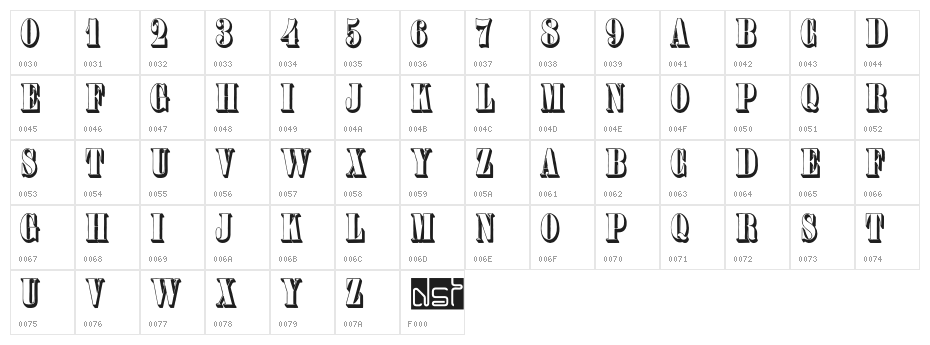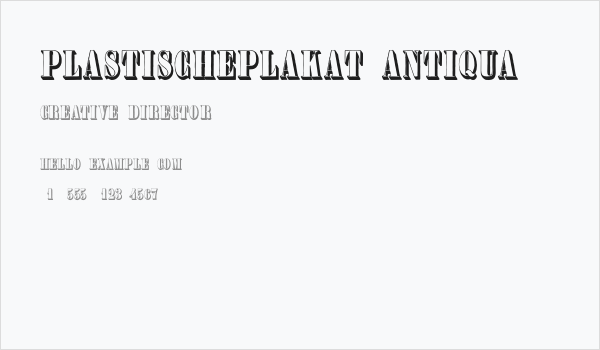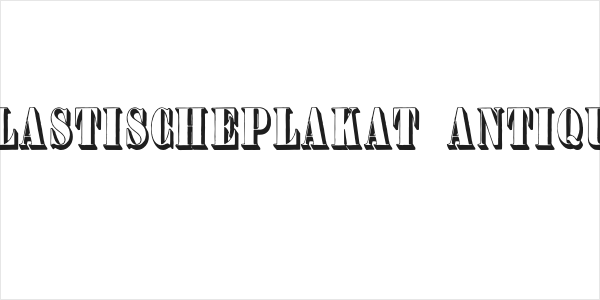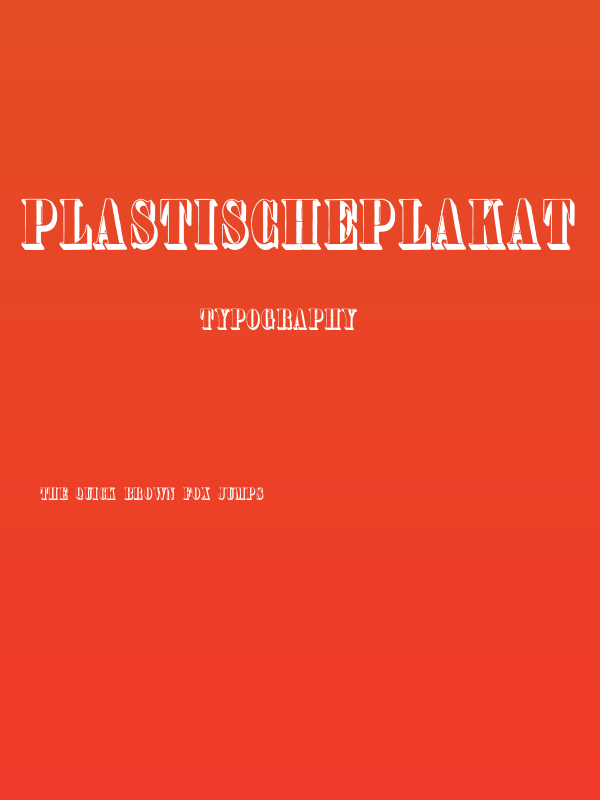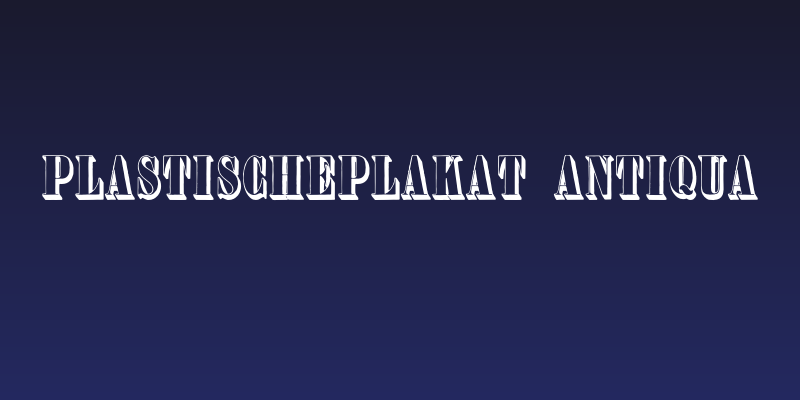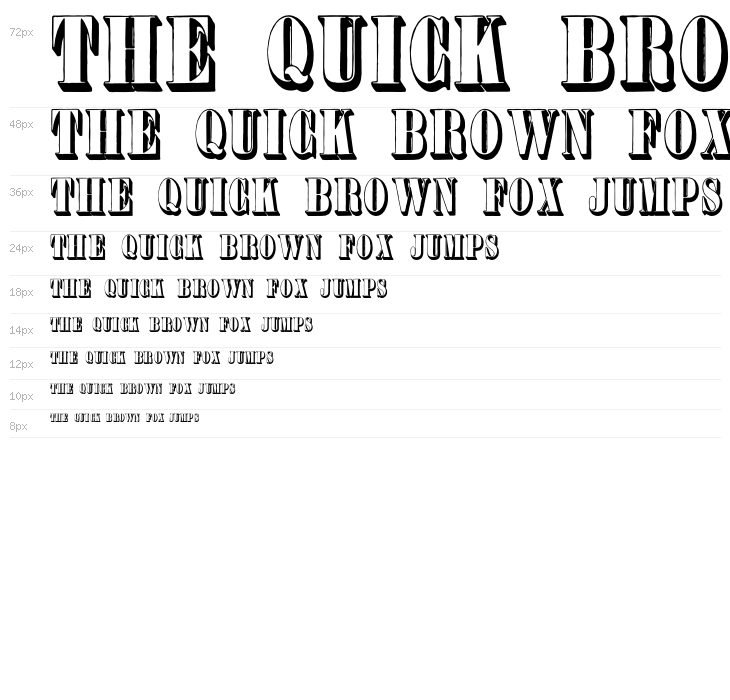
PlastischePlakat-Antiqua Font
PlastischePlakat-Antiqua Description
This font features a bold and striking design with a three-dimensional effect, giving each character a sense of depth and shadow. The letters are capitalized and exhibit a strong, impactful presence, making them ideal for attention-grabbing headlines or titles. The design incorporates a classic serif style with decorative elements, enhancing its visual appeal. The numbers follow the same bold and dimensional style, ensuring consistency across all characters. This font's unique aesthetic makes it suitable for projects that require a vintage or retro feel, while still maintaining a modern edge.
| Proposed Projects | Ideal for posters, logos, branding, and any design needing a bold, eye-catching typeface. |